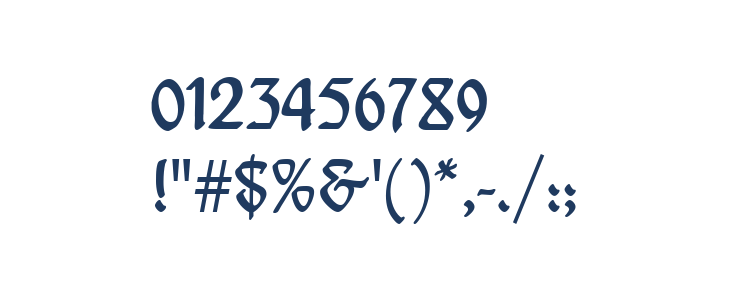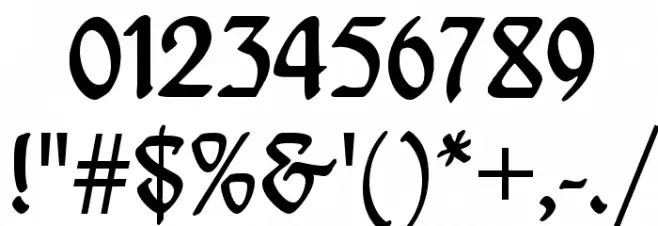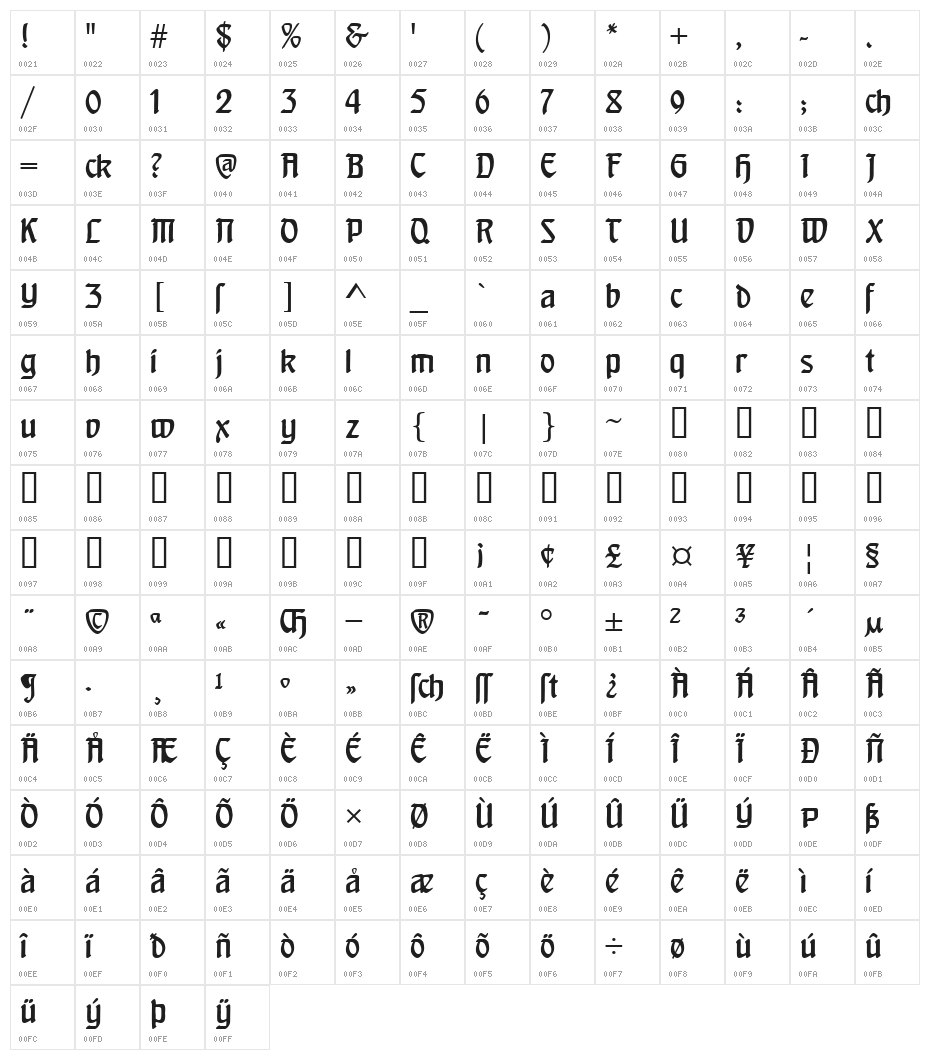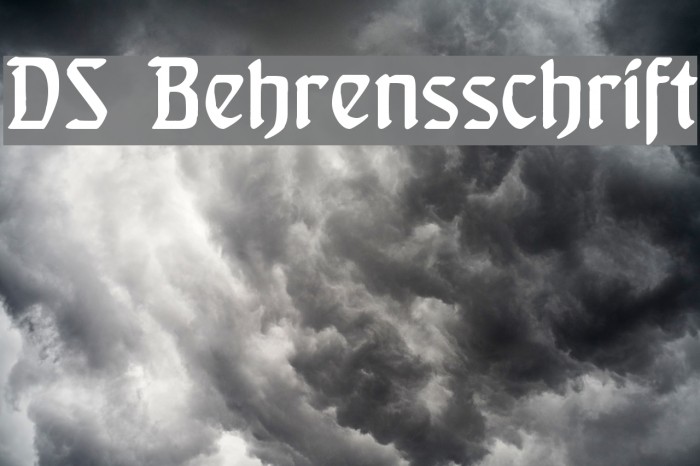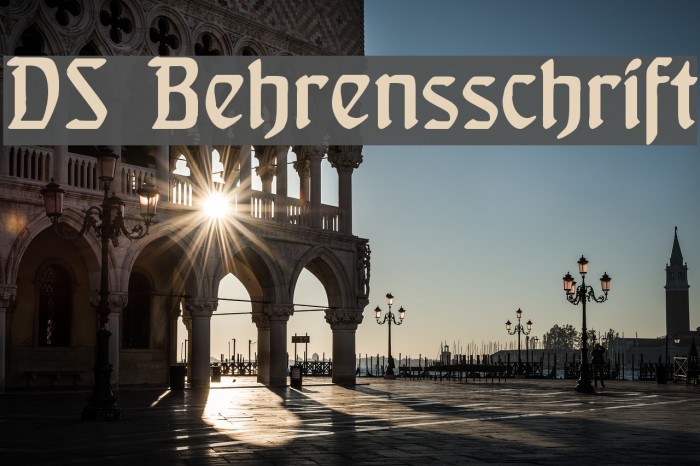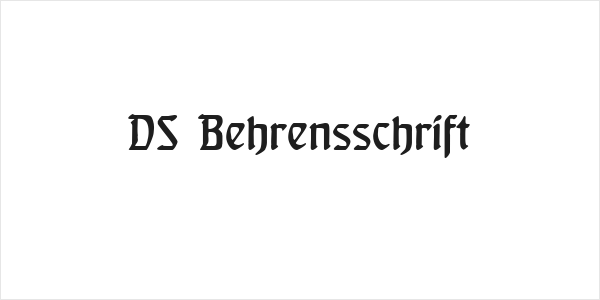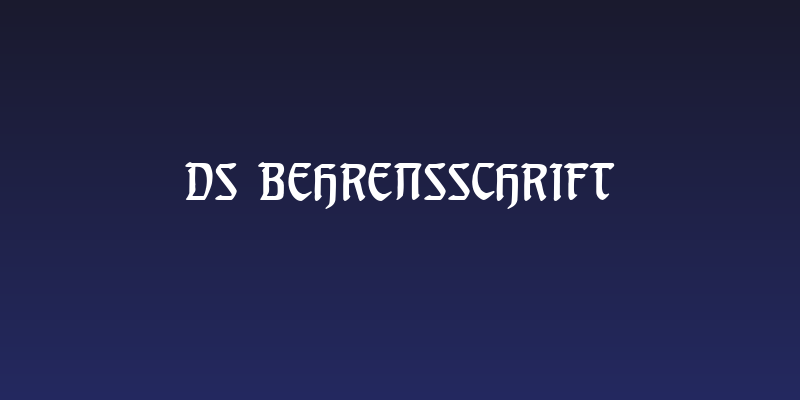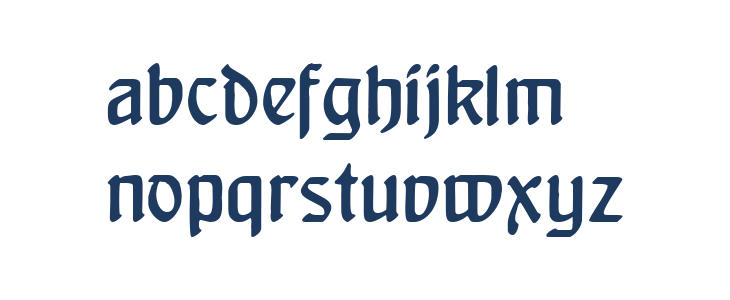
DS Behrensschrift Font
DS Behrensschrift Description
This font exhibits a classic blackletter style, characterized by its sharp, angular forms and bold strokes. The uppercase letters are tall and narrow, with distinctive pointed serifs and a strong vertical emphasis. The lowercase letters maintain the same angularity, with unique flourishes that add to the font's ornate appearance. Numbers and special characters are designed to complement the letterforms, featuring similar sharp angles and bold lines. The overall design is reminiscent of traditional Gothic script, making it suitable for projects that require a historical or formal aesthetic.
| Use Case | Logos, Headlines, Certificates |
| Proposed Projects | Ideal for historical documents, formal invitations, certificates, and branding that requires a traditional or Gothic aesthetic. |